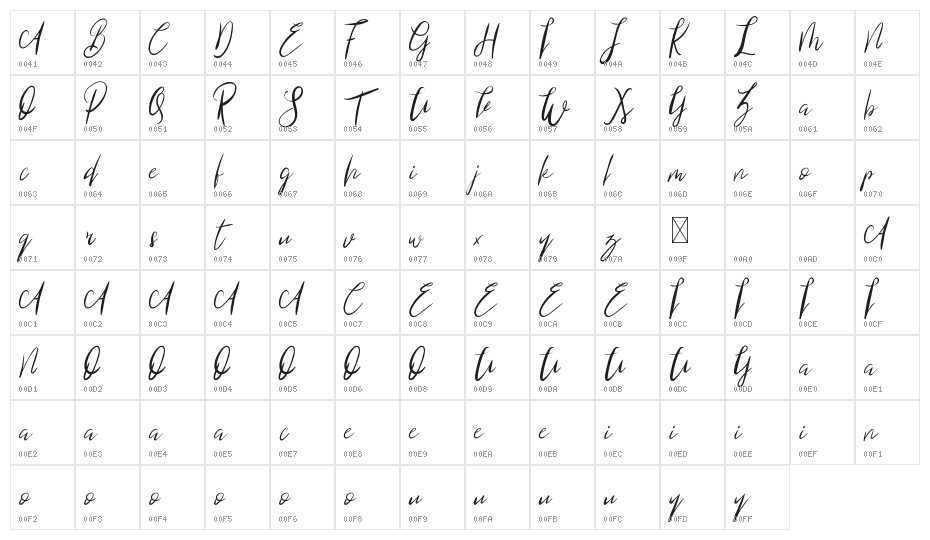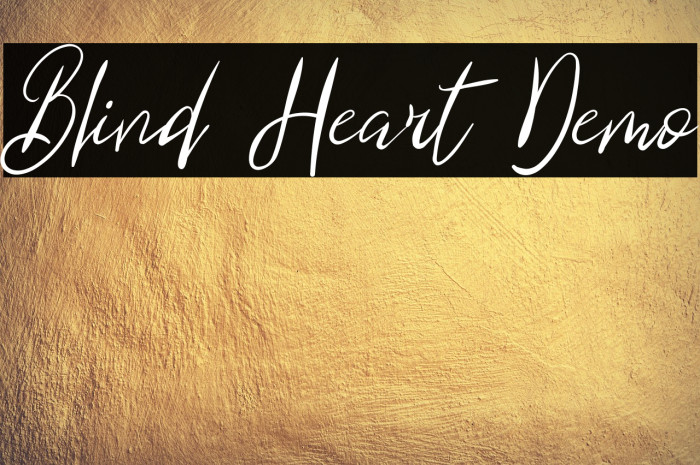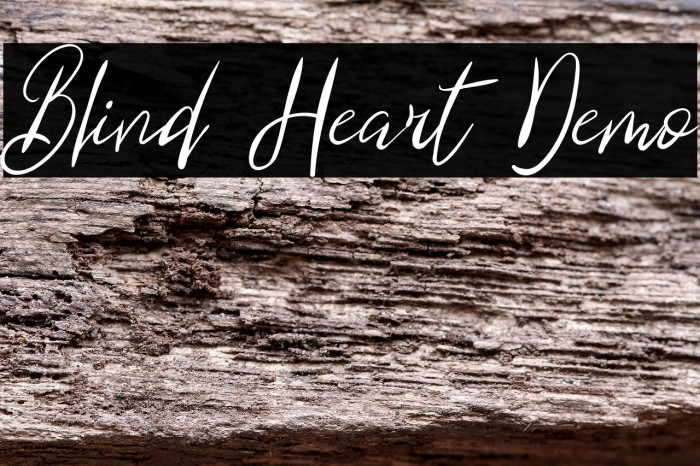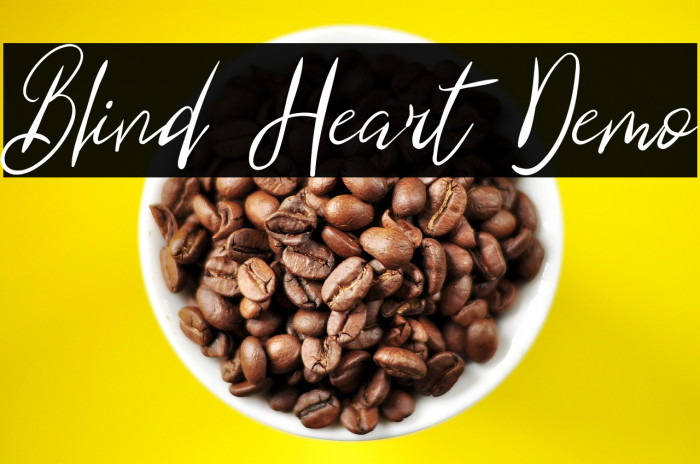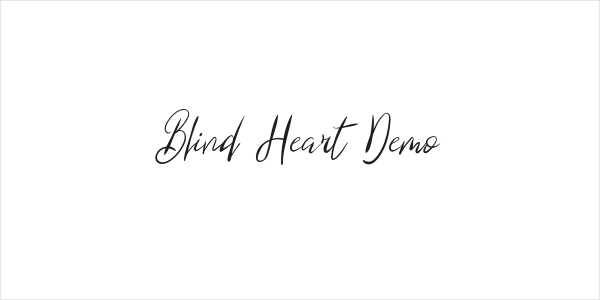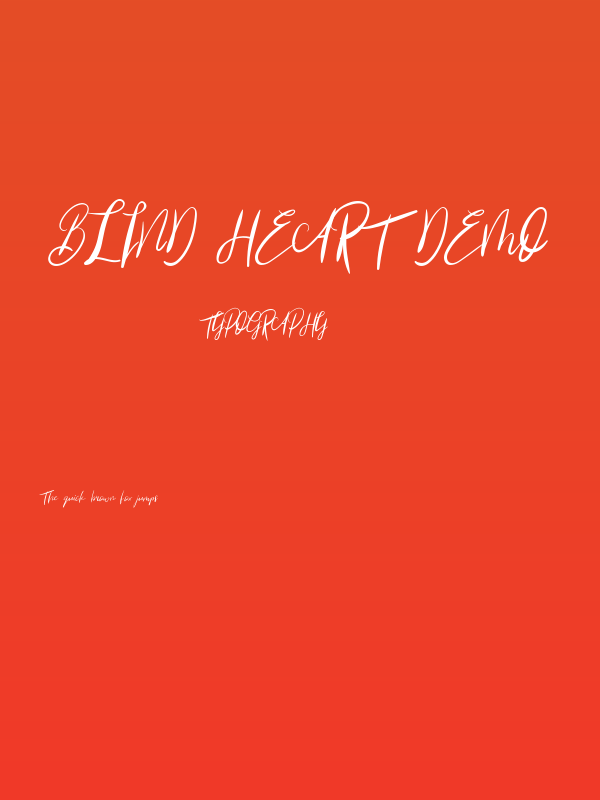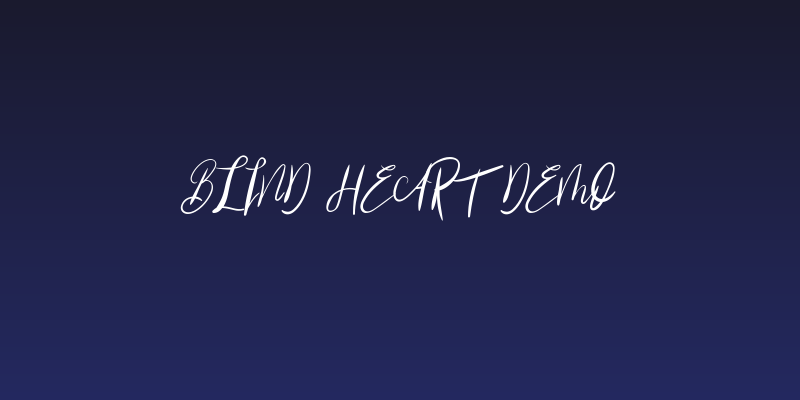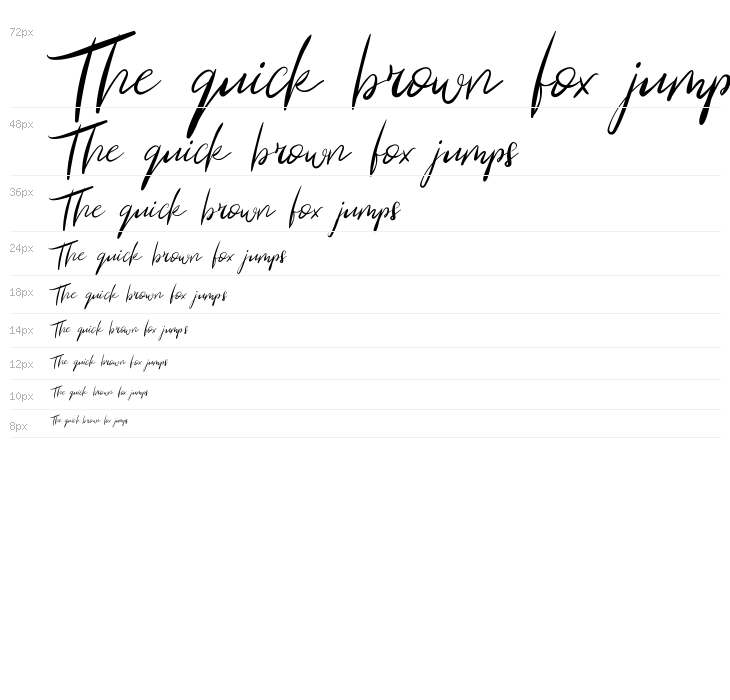
Blind Heart Demo Font
Blind Heart Demo Description
This font features an elegant and flowing script style, characterized by its smooth, cursive strokes and artistic flair. The letters are interconnected, creating a sense of fluidity and movement. The uppercase letters are bold and expressive, while the lowercase letters maintain a consistent style with slightly more subtlety. The font exudes a sense of sophistication and creativity, making it ideal for projects that require a personal touch. The overall appearance is both modern and timeless, with a hint of romantic charm. The special characters are seamlessly integrated, maintaining the font's cohesive look.
| Overall Style | Elegant, Romantic |